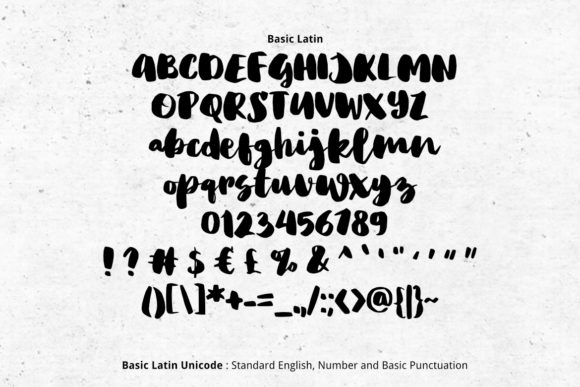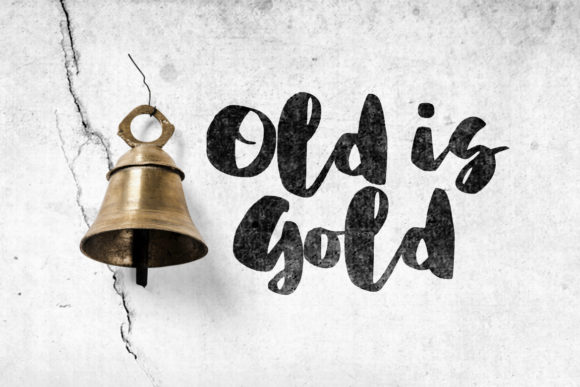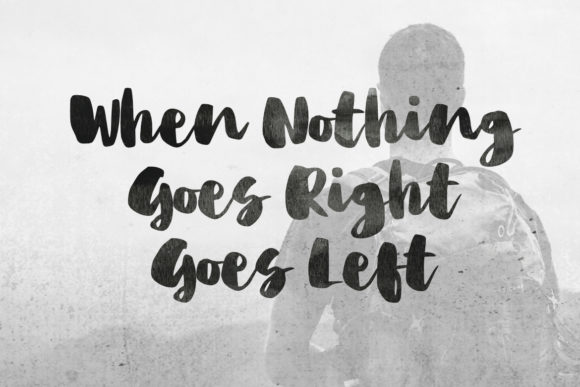
Big Fat Font
About Big Fat Font
Big Fat is a bold handwritten font, carefully handcrafted to become a true favorite. Its casual charm makes it appear wonderfully down-to-earth, readable and, ultimately, incredibly versatile. Big Fat will look outstanding in any context, whether it’s being used on busy backgrounds or as a standalone headline!